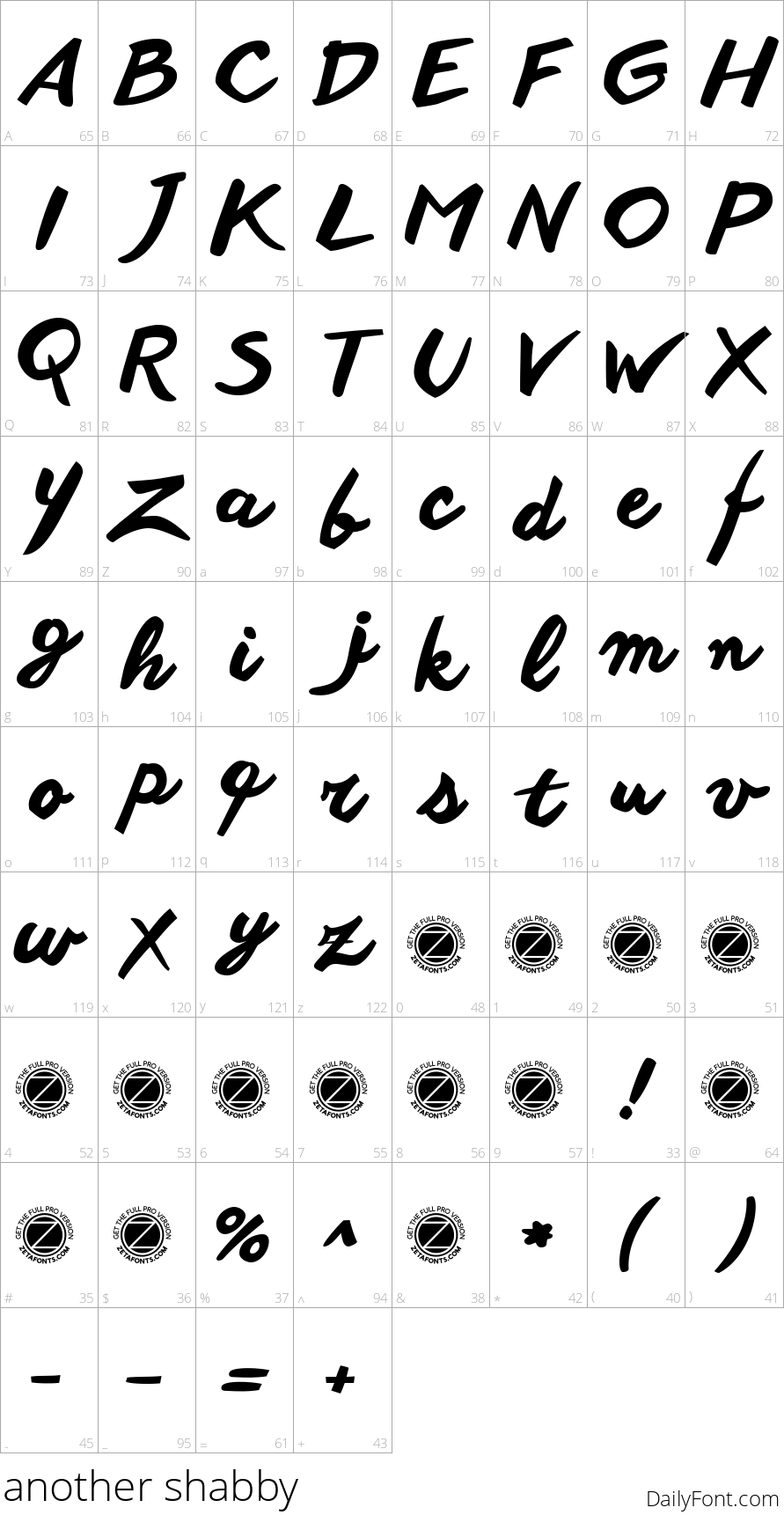
Another Shabby
Rough brushstroke script with a casual handwritten feel
Searching for a script font that captures the essence of handwritten casual elegance? Look no further than Another Shabby, a unique and versatile typeface designed by Francesco Canovaro for Zetafonts. This charming font family is characterized by rough, wide brushstrokes with slightly rounded corners, giving it a genuinely handmade feel.
Another Shabby is an excellent choice for designers seeking to add a touch of sophistication and personality to their designs. The font's extensive language support covers over 40 languages that use the Latin, Greek, and Cyrillic alphabets, making it an ideal solution for projects requiring global reach. With four weights to choose from, you can easily find the perfect match for your design.
What sets Another Shabby apart is its Wet version, which unlocks a world of creative possibilities. This special edition allows you to create stunning watercolor-textured and multilayered color images directly within your design software, eliminating the need for photo-retouching tools. Whether you're working on a branding project, creating a stunning typographic piece, or designing a beautiful book cover, Another Shabby is an excellent choice for anyone seeking a unique script font that exudes style and sophistication.